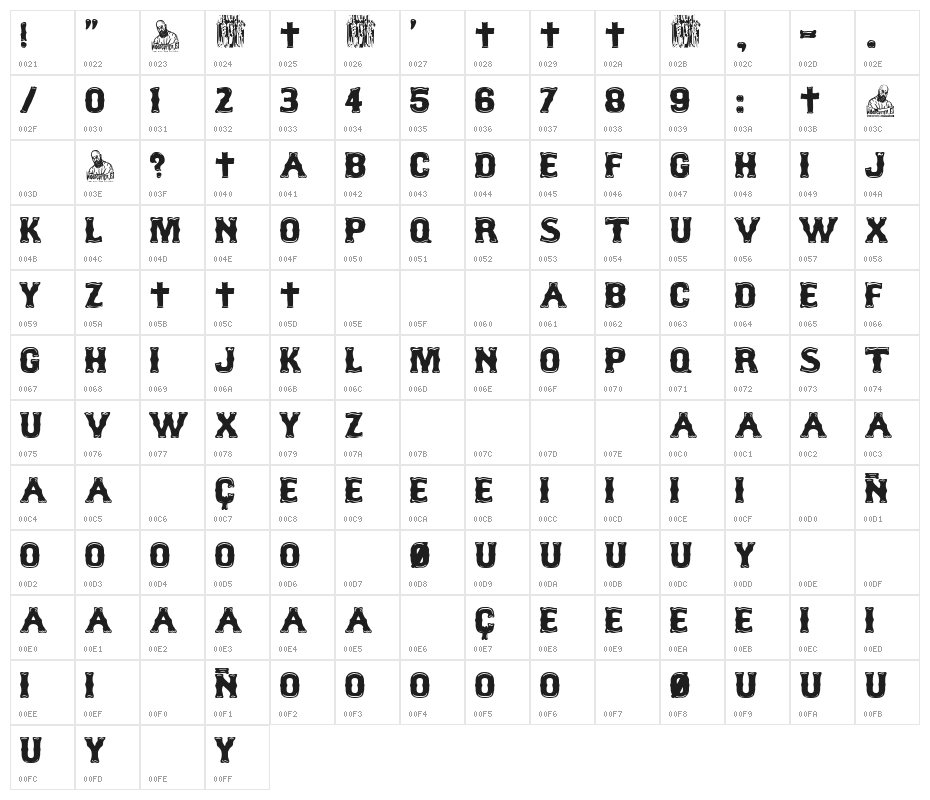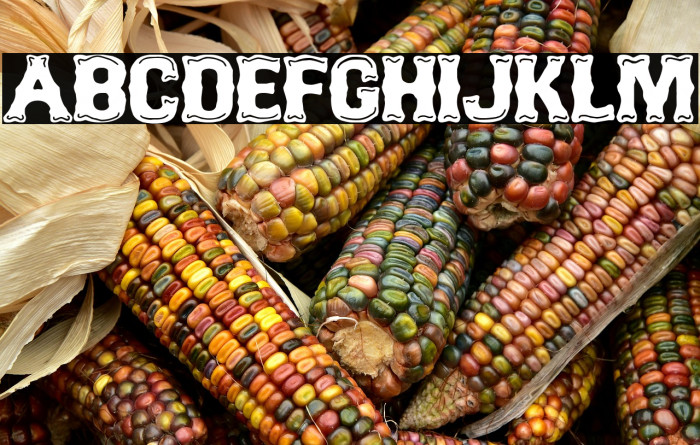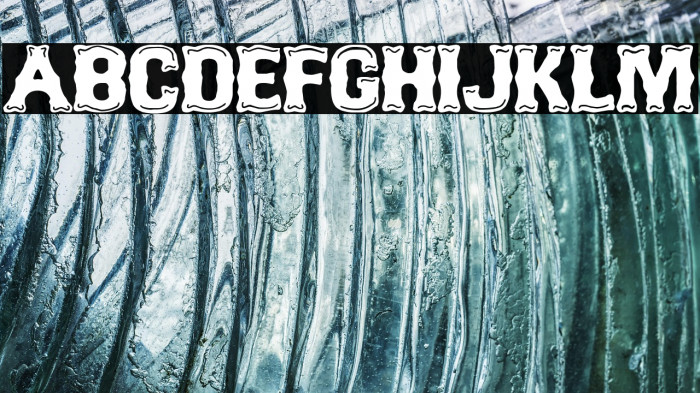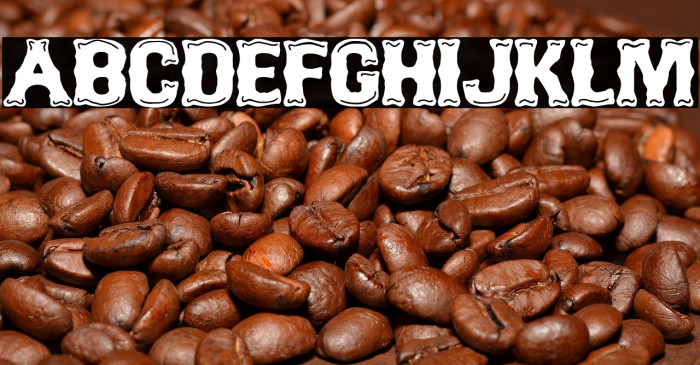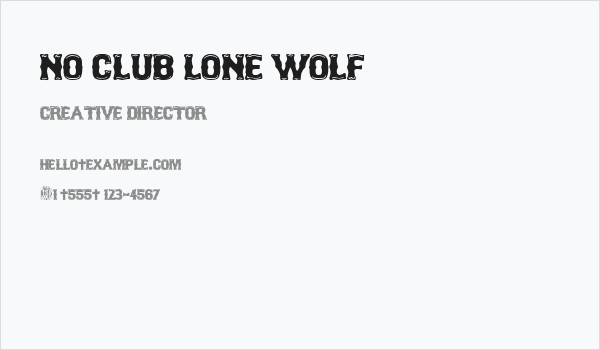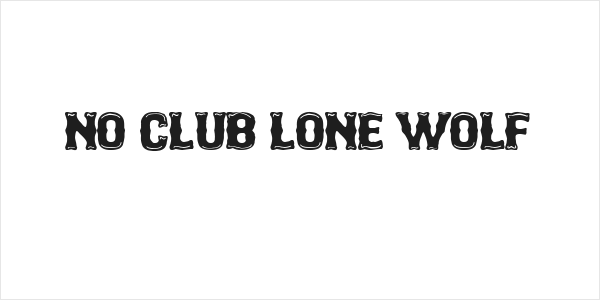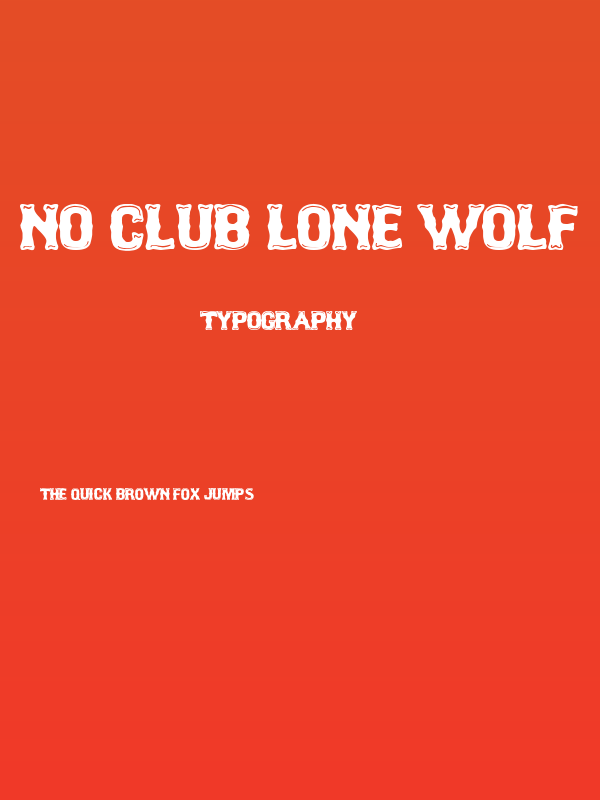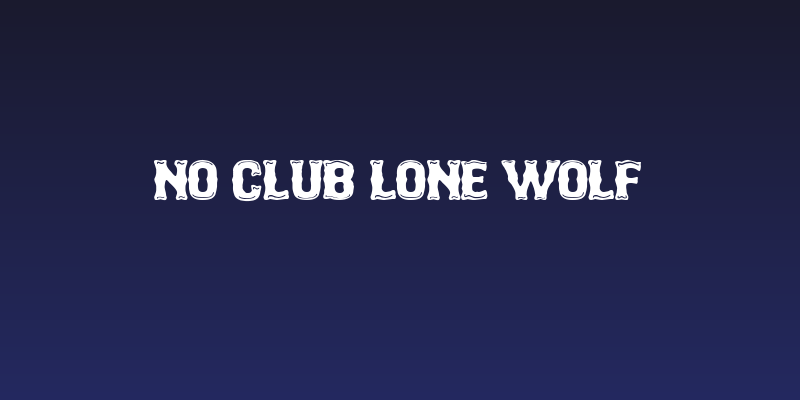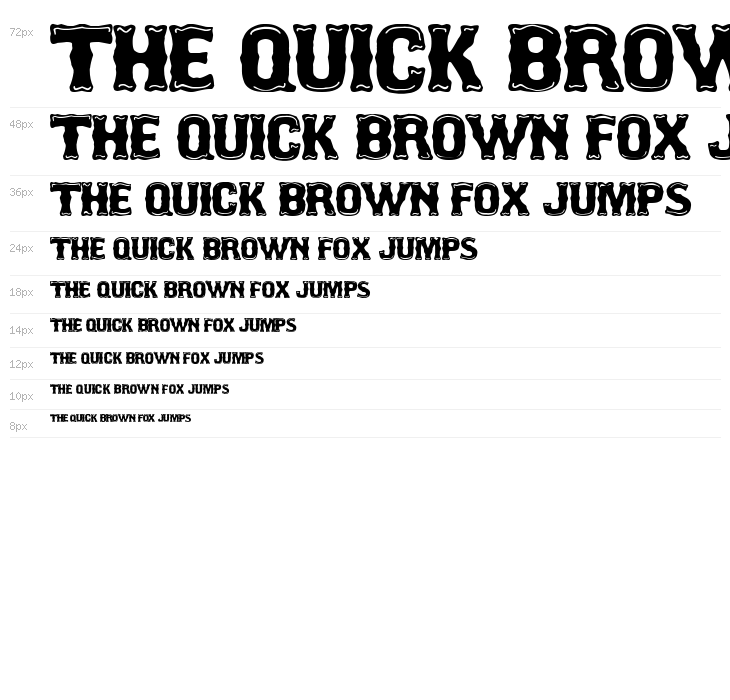
No Club Lone Wolf Font
No Club Lone Wolf Description
A bold, decorative display font with irregular, rugged edges and a distressed, hand-crafted appearance. The characters are uppercase with thick strokes and organic, uneven outlines, giving a vintage, rebellious feel. The numbers and punctuation follow the same bold, distressed style.
| Overall Style | Decorative, Vintage, Rebellious |
| Proposed Projects | Posters, band logos, event flyers, tattoo designs, vintage-themed branding, horror or biker-related graphics. |